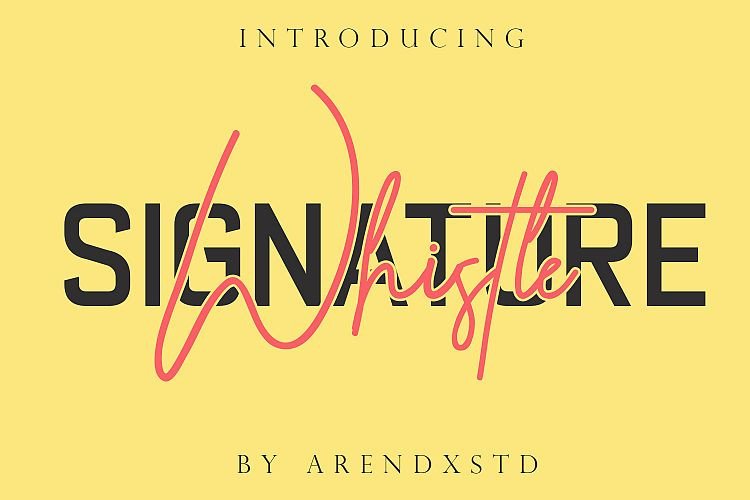
Whistle Signature Font
Hi designer! This is an elegant signature font, is a new variant of handmade script typography. Present to you to complete your script font collection. Introducing Whistle! It’s designed by Arendxstudio. Whistle – casual handwritten font with personal charm. With a charming sweep that is perfect for branding your product needs and brand name. It’s perfect for logos, unique branding, photo overlays, signatures, and much more.